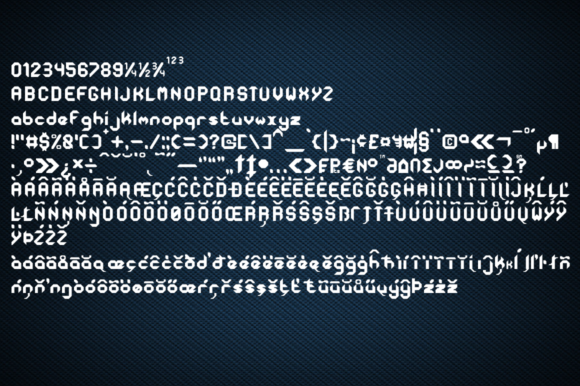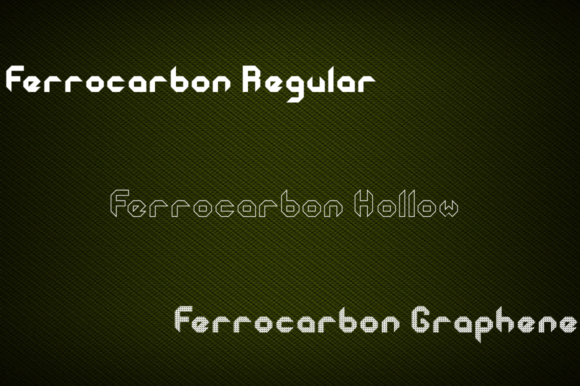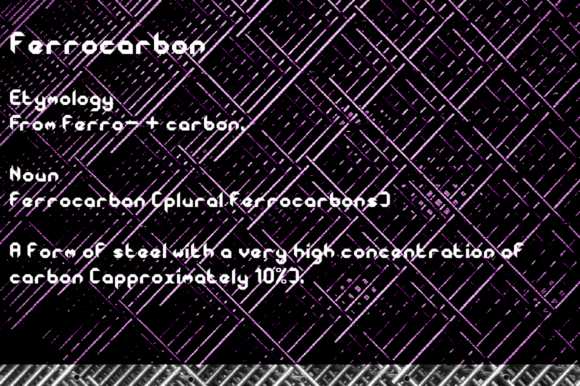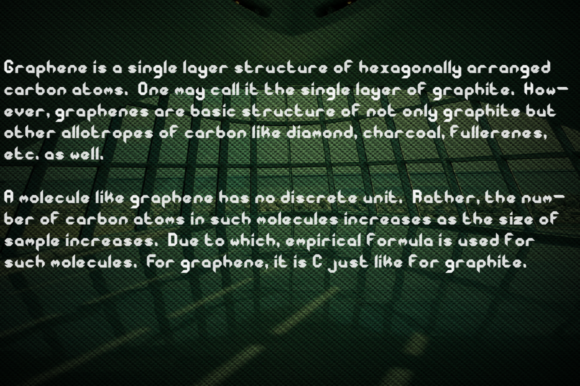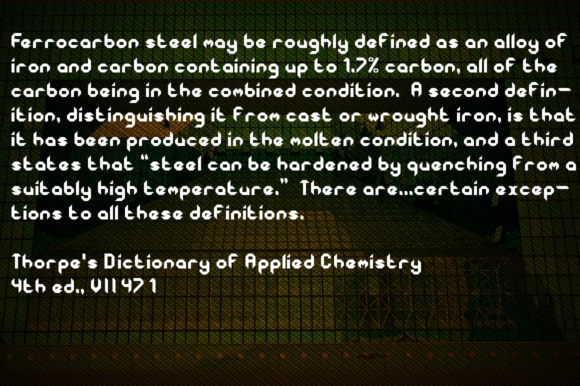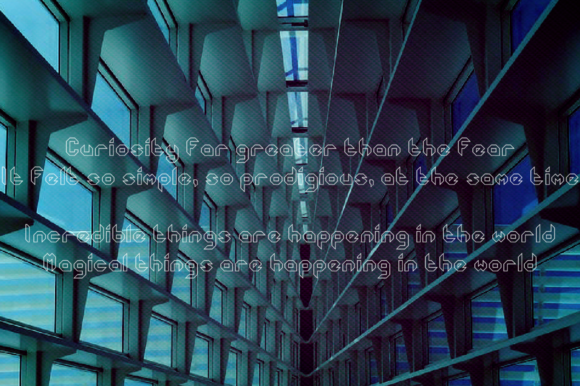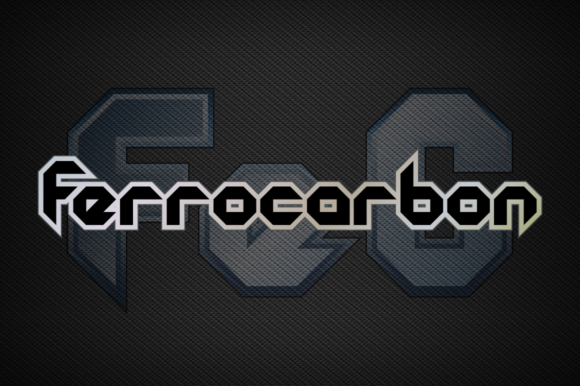
Ferrocarbon Family Font: A Futuristic Display Font for Your Next Project
Are you looking for a font that adds a touch of sci-fi to your designs? Look no further than the Ferrocarbon Family Font. This unique and bold display font is perfect for any project that needs a futuristic feel. In this article, we’ll dive into the features and benefits of the Ferrocarbon Family Font and explore how you can use it to take your designs to the next level.
What is Ferrocarbon Family Font?
Ferrocarbon Family Font is a display font designed with a futuristic feel in mind. Its bold and unique lettering makes it perfect for headlines, titles, and any other design element that needs to stand out. The font features a metallic, industrial look that’s reminiscent of science fiction and futuristic themes.
Key Features of Ferrocarbon Family Font
- Unique and Bold Design: Ferrocarbon Family Font features a one-of-a-kind design that’s sure to grab attention. Its bold lines and metallic finish make it perfect for creating striking headlines and titles.
- Futuristic Feel: The font’s futuristic feel makes it perfect for sci-fi themed projects, tech startups, and any other design that needs a touch of innovation and forward-thinking.
- Multi-Language Support: The font supports multiple languages, making it perfect for designers and crafters who work with international clients.
Benefits of Using Ferrocarbon Family Font
So why choose Ferrocarbon Family Font for your next project? Here are just a few benefits of using this unique display font:
- Adds a Touch of Sci-Fi: Ferrocarbon Family Font adds a touch of science fiction to any design, making it perfect for projects that need a futuristic feel.
- Stand Out from the Crowd: The font’s bold and unique design ensures that your headlines and titles will stand out from the crowd.
- Versatile: Ferrocarbon Family Font can be used for a wide range of projects, from tech startups to sci-fi movies and video games.
- Easily Customizable: The font is easily customizable, allowing you to adjust the size, color, and style to fit your design needs.
How to Use Ferrocarbon Family Font
Using Ferrocarbon Family Font is easy. Here are a few tips to get you started:
- Headlines and Titles: Use Ferrocarbon Family Font for headlines and titles to add a touch of sci-fi to your designs.
- Logo Design: The font’s bold and unique design makes it perfect for logo design, especially for tech startups and sci-fi themed brands.
- Poster Design: Use Ferrocarbon Family Font to create striking posters for sci-fi movies, video games, and tech events.
- Digital Art: The font can also be used in digital art, such as illustrations and graphics.
Here are a few tips and tricks to help you get the most out of Ferrocarbon Family Font:
- Experiment with Colors: The font’s metallic finish looks great in a range of colors, from bright metallics to dark, muted tones.
- Play with Size: Ferrocarbon Family Font looks great at any size, from small captions to large headlines.
- Combine with Other Fonts: The font pairs well with other sans-serif fonts, creating a striking contrast that’s perfect for headlines and titles.
Ferrocarbon Family Font is a unique and bold display font that’s perfect for any project that needs a touch of sci-fi. Its futuristic feel, high-quality vector graphics, and multi-language support make it a versatile font that can be used for a wide range of projects. Whether you’re a designer, crafter, or tech startup, Ferrocarbon Family Font is a great choice for adding a touch of innovation and forward-thinking to your designs.